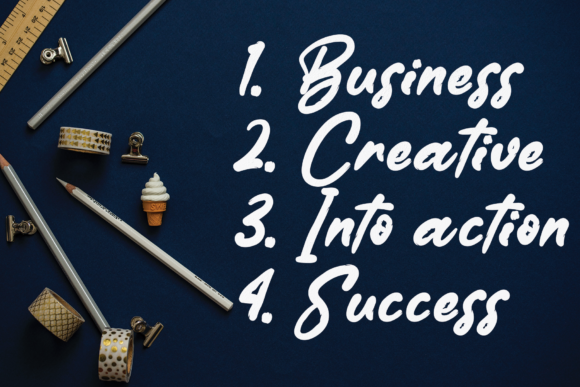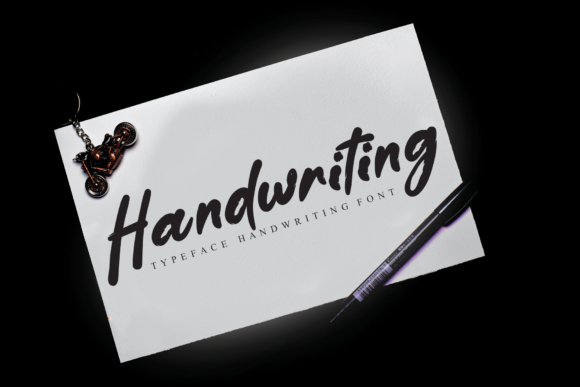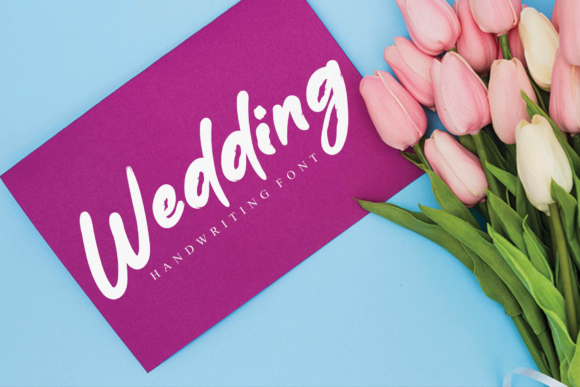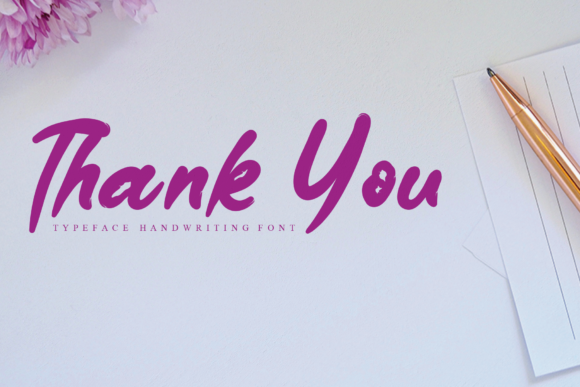
Where Creativity Meets Whimsy
Have you ever sat down with a blank canvas or screen, feeling the urge to create something truly special? Maybe it’s a birthday card for a loved one, or a presentation that needs to wow a client. Whatever the project, there’s something magical about bringing your ideas to life with the perfect font.
Enter the Dreamland Font, a sweet and flowing handwritten font that’s as charming as it is versatile. Whether you’re crafting, designing digitally, or making greeting cards, this font is the perfect companion for your creative endeavors. And for designers, its value lies in its ability to add a touch of whimsy and personality to even the most mundane projects.
Dreamland Font Key Features
- Unique Characteristics: The font features a dreamy, ethereal quality, with subtle irregularities and flourishes that evoke a sense of whimsy and fantasy.
- Kerning and Ligatures: The font includes advanced kerning and ligature pairs, ensuring smooth and elegant text rendering even at small font sizes.
Dreamland Font Review
I’ve had the chance to work with the Dreamland font for a few projects now, and I must say, it’s a mixed bag. Let’s start with the good stuff:
- ✨ The font has a unique, whimsical feel to it that’s perfect for creating eye-catching headlines or titles.
- ✨ The font’s irregularities and imperfections give it a hand-drawn feel that’s both charming and authentic.
- ✨ The font is highly legible, even at small sizes, making it a great choice for body text or long blocks of text.
However, there are some limitations that I think are worth mentioning:
- ⚠️ The font can feel a bit too playful or childish for more serious or professional projects.
- ⚠️ The font’s irregularities can sometimes make it difficult to read, especially for users who are sensitive to visual noise.
- ⚠️ The font’s unique feel can make it challenging to pair with other fonts, which can limit its versatility.
Overall, I think the Dreamland font is a solid choice for projects that require a touch of whimsy and personality. However, it may not be the best fit for more serious or professional projects, or for projects where legibility and readability are paramount.
Practical Application Guide for Dreamland Font
The Dreamland Font is ideal for:
- Creating whimsical and playful designs.
- Adding a touch of nostalgia to your projects.
- Designing for children’s products or educational materials.
Remember to experiment with different font sizes, colors, and combinations to get the most out of the Dreamland Font.
Alternatives to Dreamland Font
Playfair Display is a luxurious, high-end serif font ideal for creating elegant and sophisticated designs. It features beautiful flourishes and elegant lines, making it perfect for use in luxury branding, high-end fashion, and other premium products. When to use: Luxury branding, high-end fashion, and premium products.
Comparison to Dreamland Font: While both fonts are elegant and luxurious, Playfair Display is more ornate and has a more classic feel. It’s ideal for designs that require a sense of sophistication and refinement.
Cambria
Cambria is a serif font that’s designed to be highly legible and elegant. It’s ideal for use in body text, headings, and other areas where a clear and readable font is needed. When to use: Body text, headings, and other areas where legibility is key.
Comparison to Dreamland Font: Cambria is a more straightforward and classic font compared to Dreamland Font. It’s designed for readability, making it a great choice for long blocks of text, while Dreamland Font is more decorative and ornate.
Q: What is the recommended font size for using Dreamland Font?
The recommended font size for using Dreamland Font is between 12pt and 24pt. This allows for optimal legibility and visual impact. However, feel free to experiment with different font sizes to achieve the desired effect.